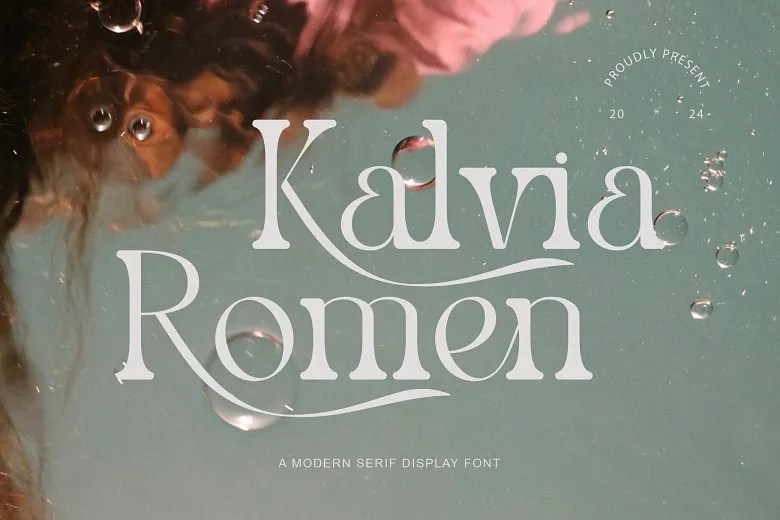
Kalvia Romen Font
Kalvia Romen is a refined and sophisticated serif display font, meticulously crafted to infuse elegance and style into any design project. With its unique combination of a stylized yet simple design, Kalvia Romen is the perfect choice for creating impactful and visually appealing work across various platforms.
Design Highlights
• Sophisticated Serif Design: Kalvia Romen stands out with its elegantly designed serifs and refined letterforms. The careful balance between stylistic flair and simplicity ensures that each character contributes to a cohesive and sophisticated look.
• Versatile and Elegant: The font’s versatility makes it ideal for a wide range of applications. Whether you’re designing websites, logos, or social media quotes, Kalvia Romen’s elegant design ensures that your message is conveyed with a touch of class.
• Stylized Capitals and Ligatures: Featuring beautifully crafted capital letters from A to Z, Kalvia Romen also includes ligatures and additional characters. This enhances the font’s flexibility and adaptability, allowing for creative and diverse typographic expressions.
Ideal Applications
• Websites and Branding: Kalvia Romen adds a touch of elegance to website designs and branding materials. Its sophisticated style helps create a strong visual identity that stands out and leaves a lasting impression.
• Wedding Invitations: For weddings, Kalvia Romen offers an exquisite and refined aesthetic that enhances the beauty of invitations. Its elegant letterforms contribute to a formal and celebratory tone, perfect for such special occasions.
• Social Media Quotes: The font’s refined design makes it ideal for social media quotes and graphics. Its sophisticated appearance ensures that your quotes and messages are presented with elegance and professionalism.
• Large Projects: Kalvia Romen’s versatility shines through in large-scale projects, where its elegant and sophisticated design can be utilized for impactful headlines, logos, and other key elements.
Why Choose Kalvia Romen?
Kalvia Romen is more than just a font; it’s an essential tool for designers seeking to add a touch of sophistication and elegance to their work. Its beautifully stylized letterforms and versatile nature make it a valuable addition to any design toolkit.